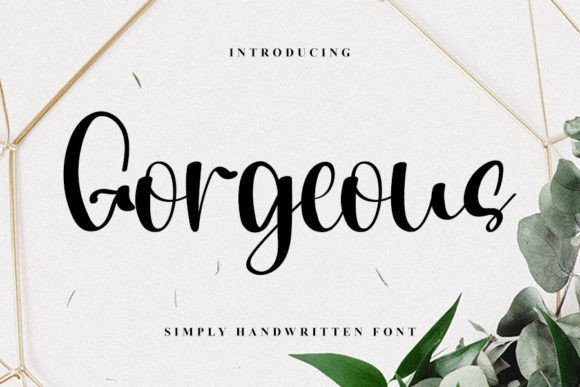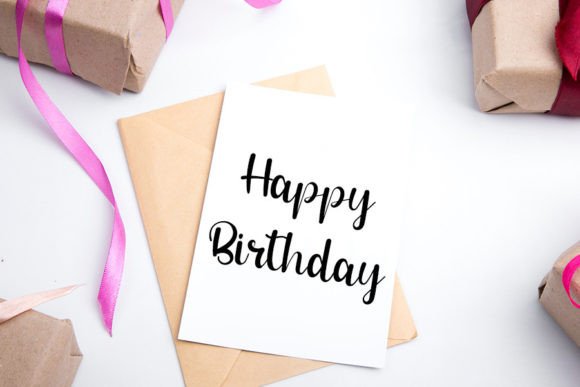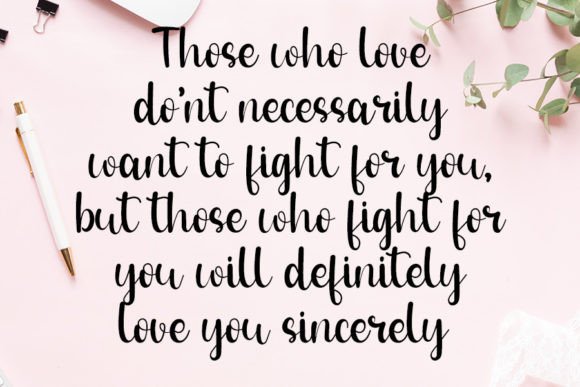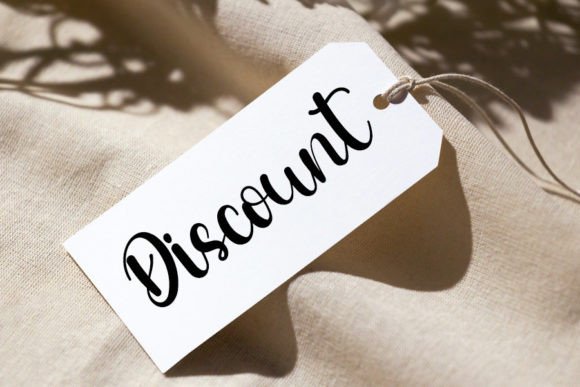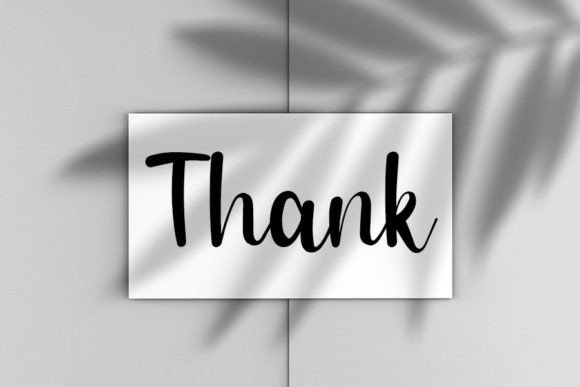
Gorgeous Font
Gorgeous is an exquisite handwritten font that seamlessly combines a neat appearance with an elegant touch, making it an impeccable choice for your favorite projects. Its incredibly distinct and timeless style invites you to embrace its beauty and use it to craft truly spectacular designs.
The neatness of Gorgeous is immediately noticeable, offering a clean and organized aesthetic that ensures readability and precision in your designs. Each letter is meticulously crafted, contributing to the overall sophistication and polished look of the font.
What sets Gorgeous apart is its handwritten elegance. The graceful strokes of each character add a personal and refined touch to your projects. This font doesn’t just convey information; it elevates your design, infusing it with a sense of style and charm.
Whether you’re working on branding, invitations, stationery, or any creative endeavor, Gorgeous adapts effortlessly to your vision. Its timeless style ensures versatility, allowing you to create designs that withstand the test of changing trends, making it a reliable and enduring choice.
Gorgeous isn’t just a font; it’s a design asset that empowers your creativity. Fall in love with its distinct and beautiful qualities as you explore its potential in your projects. Let it be the signature element that enhances your designs, making them not just visually appealing but also memorable and captivating.
In conclusion, let Gorgeous be the perfect companion for your creative endeavors. Embrace its neat and beautiful characteristics, appreciate its elegant touch, and use it to create designs that are not just spectacular but also timeless in their allure.